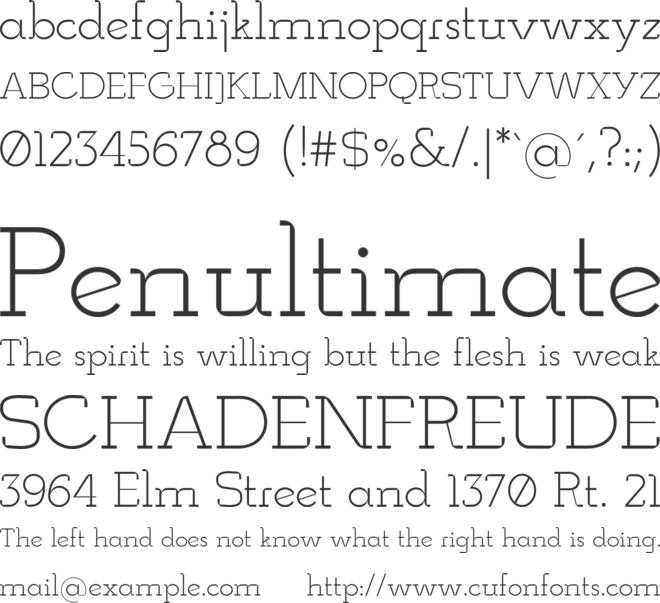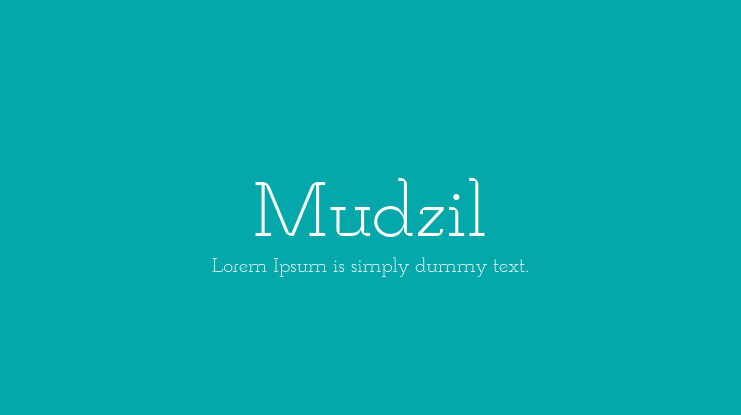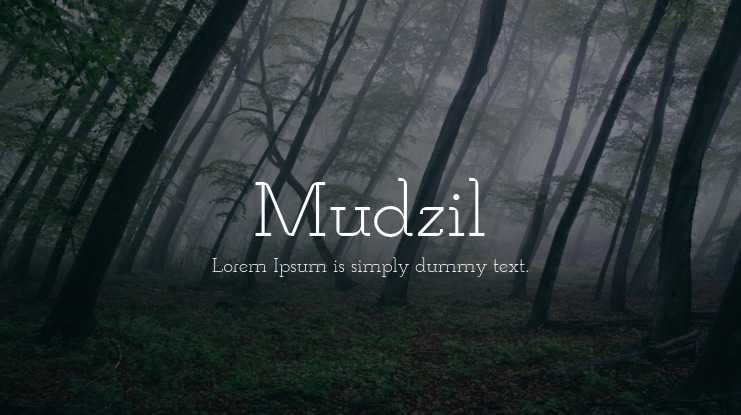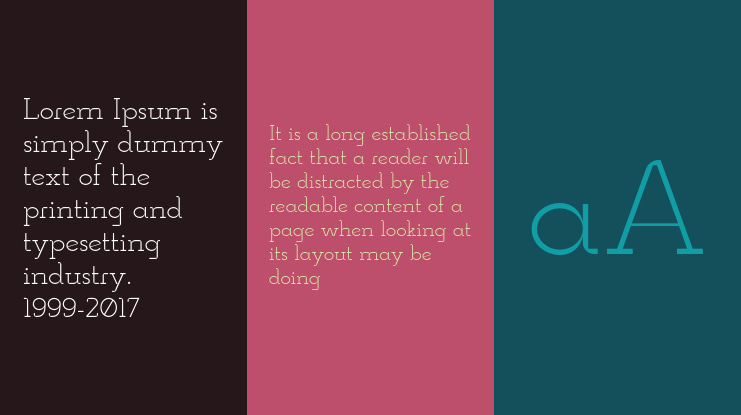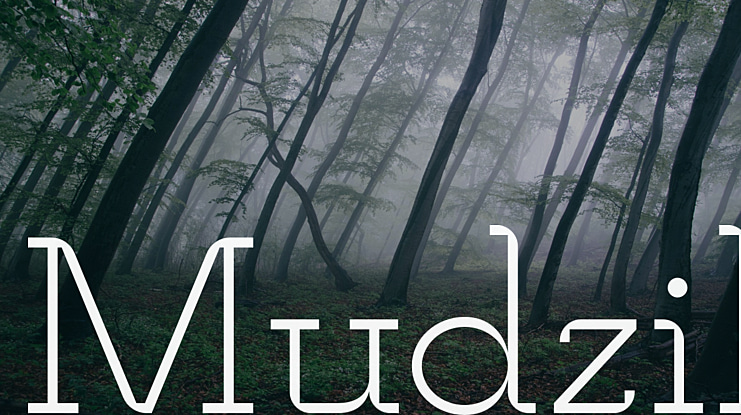
Mudzil Font Family
Maybe you're tired of slab fonts that are too monotonous or too rigid!
Introduce Mudzil, a type family with a more dynamic and brutal style, perfect for magazines, posters, books, logos, etc. Your design doesn't look boring.
If you want to make your design more different, Mudzil is also accompanied by several alternative letters, because a little different is better than a little better.
I hope you have a blast using Mudzil.